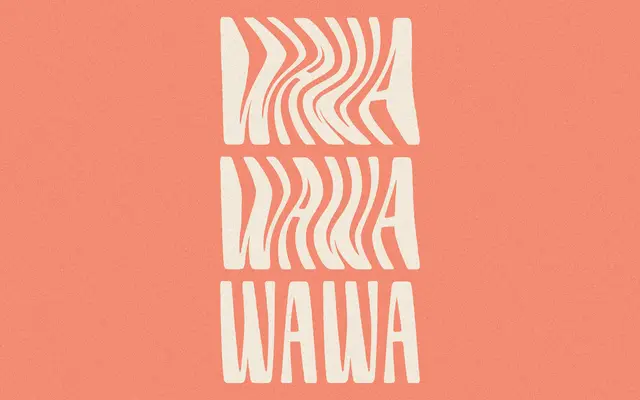
Wawa specimen from Taylor Penton
A wide, unhurried display face with a tropical sensibility, suited to short headlines, packaging and logo work.
Built for bold, short phrases and eye-catching titles, Wawa takes a deliberately broad and relaxed stance that suits it to lifestyle branding, packaging and editorial headlines. The single Regular weight ships as OTF, WOFF and WOFF2, covering basic Latin with a limited set of accented characters across 151 glyphs. Its character sits somewhere between a beach bar sign and a confident logotype, which gives it more range than its narrow weight offering might suggest.
A wide, relaxed display typeface designed for short, bold headlines and titles, with a tropical, leisurely character that places it firmly in the display category.